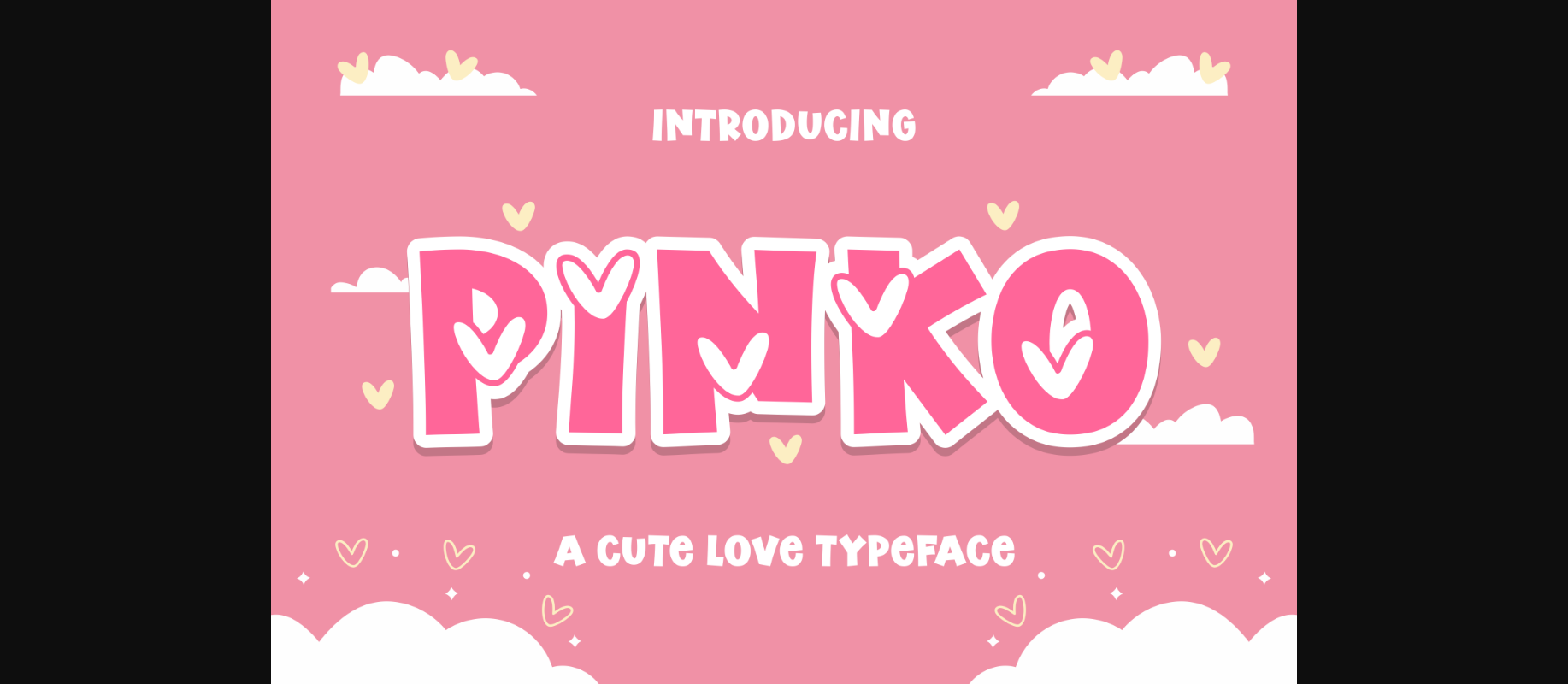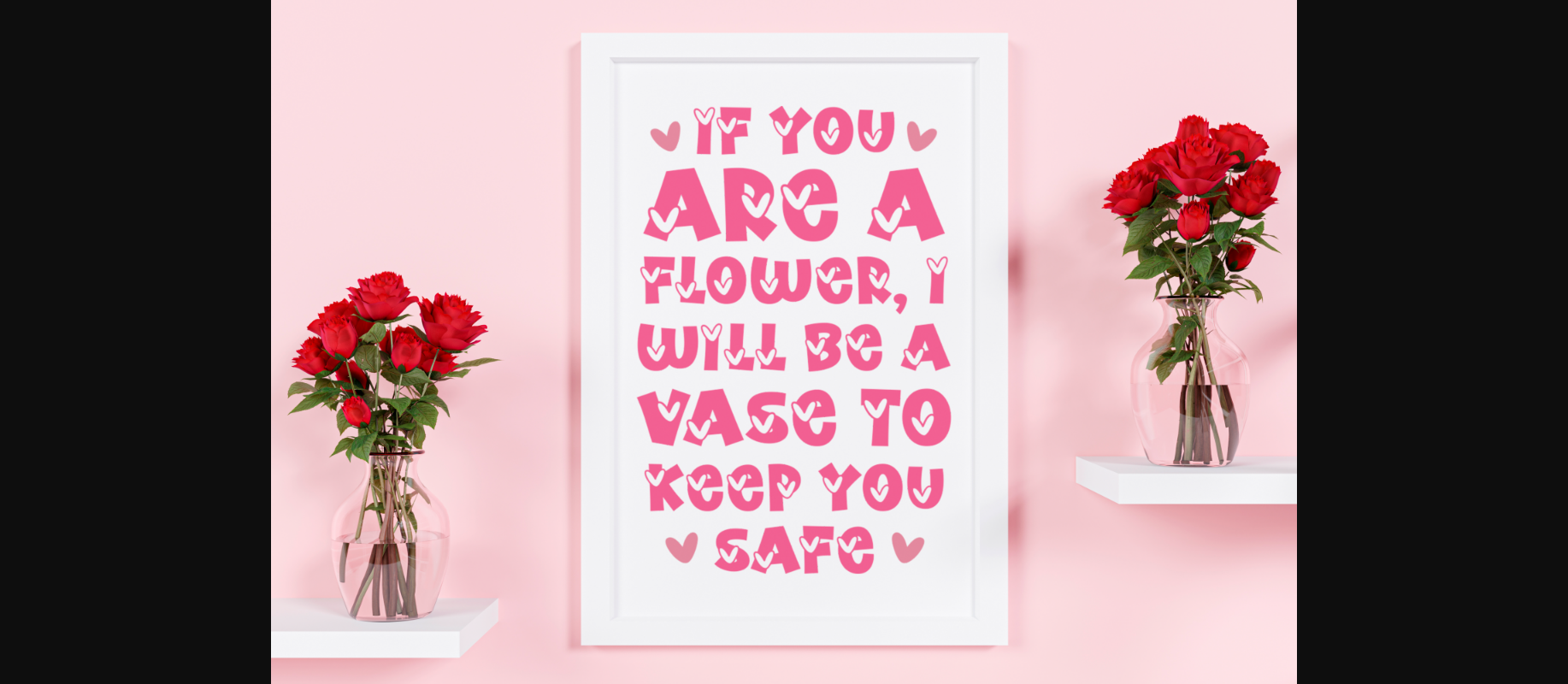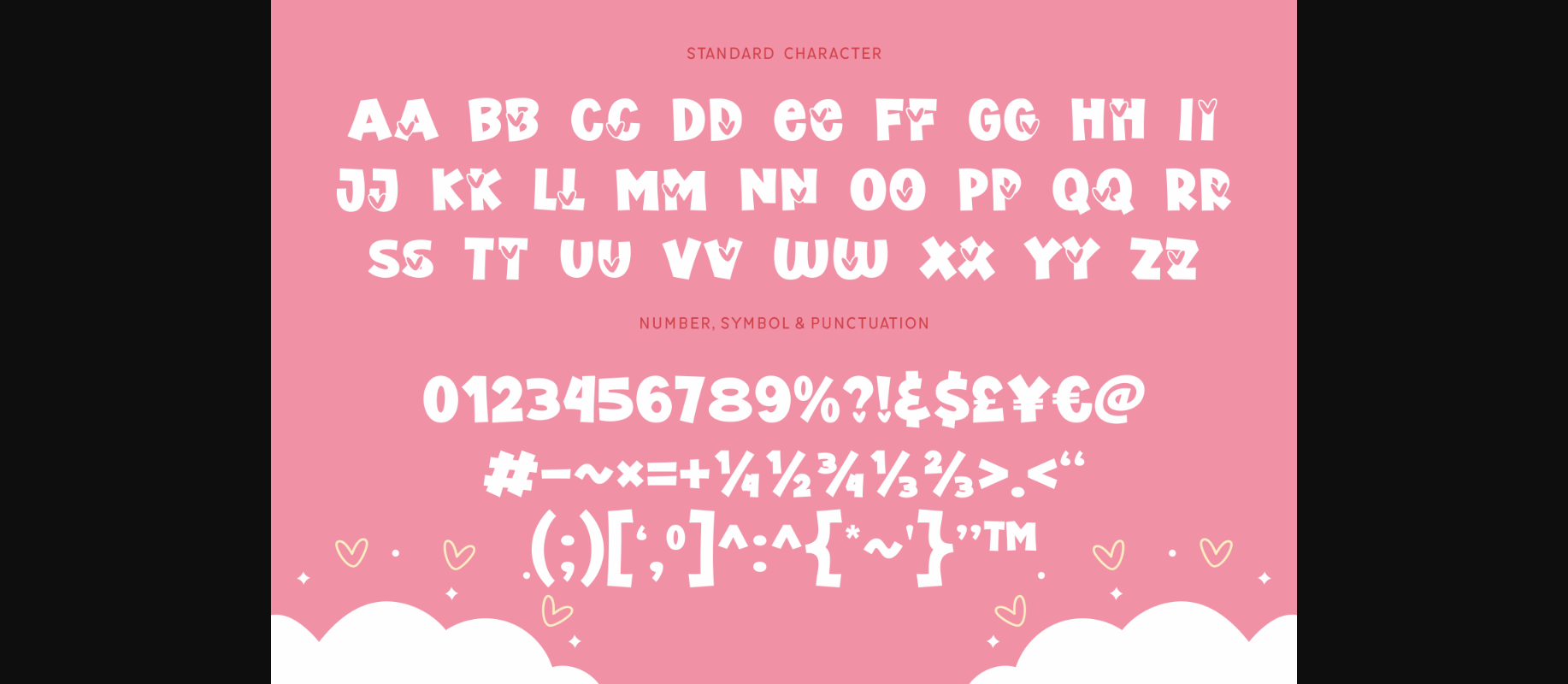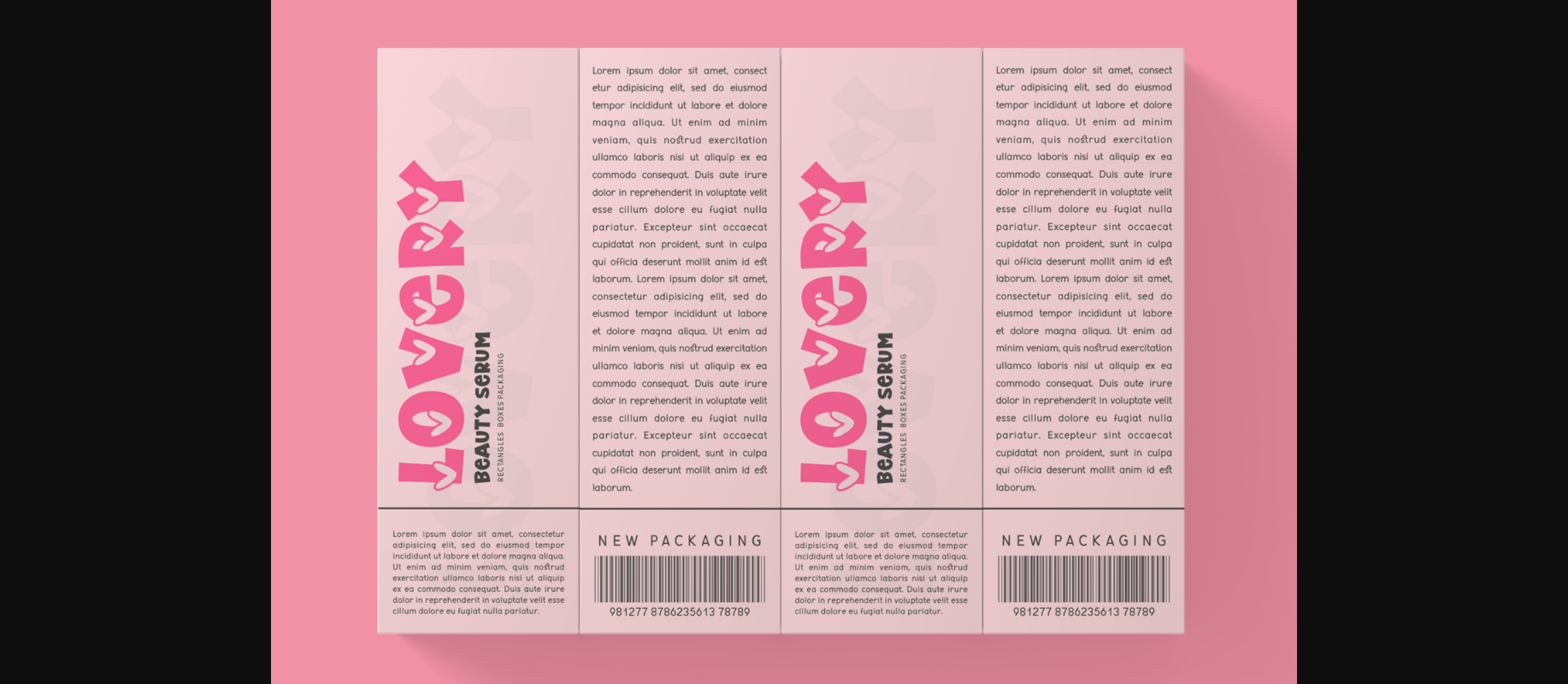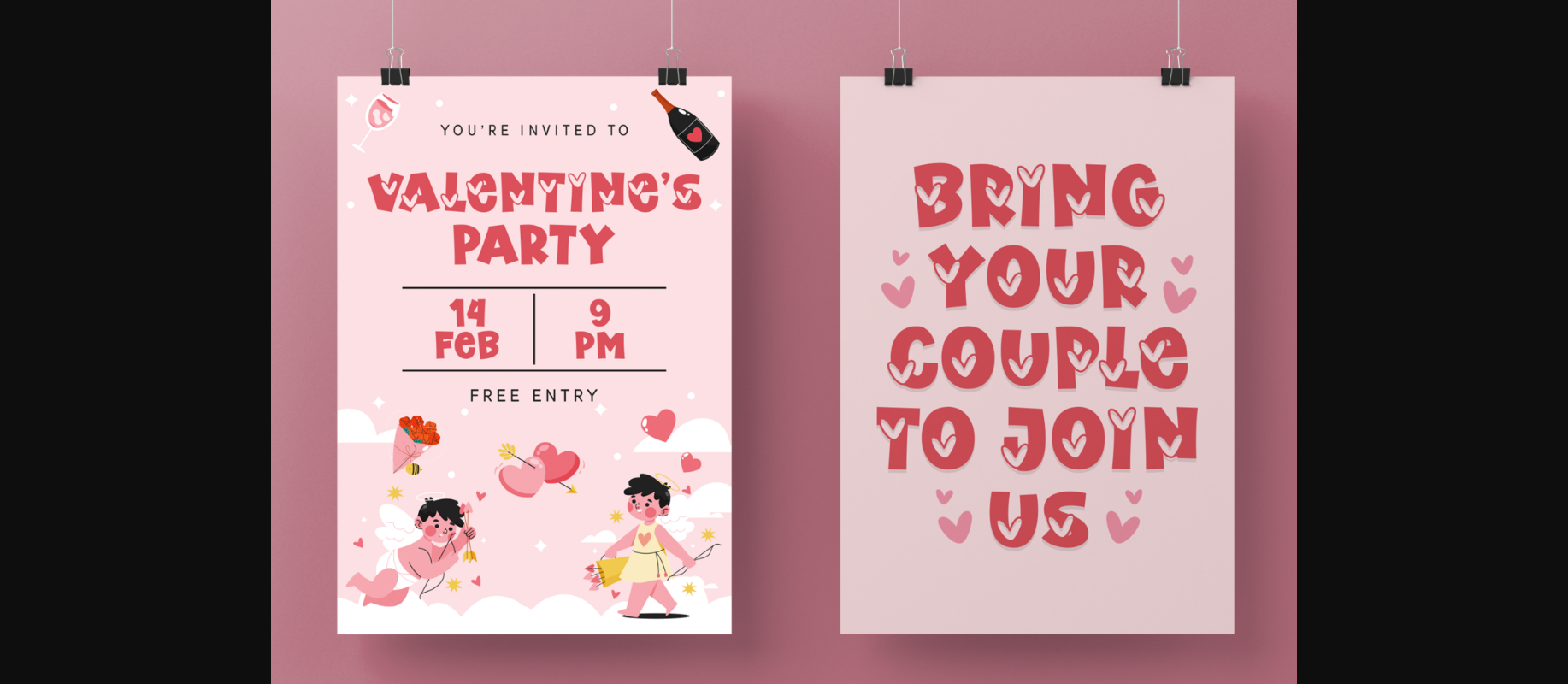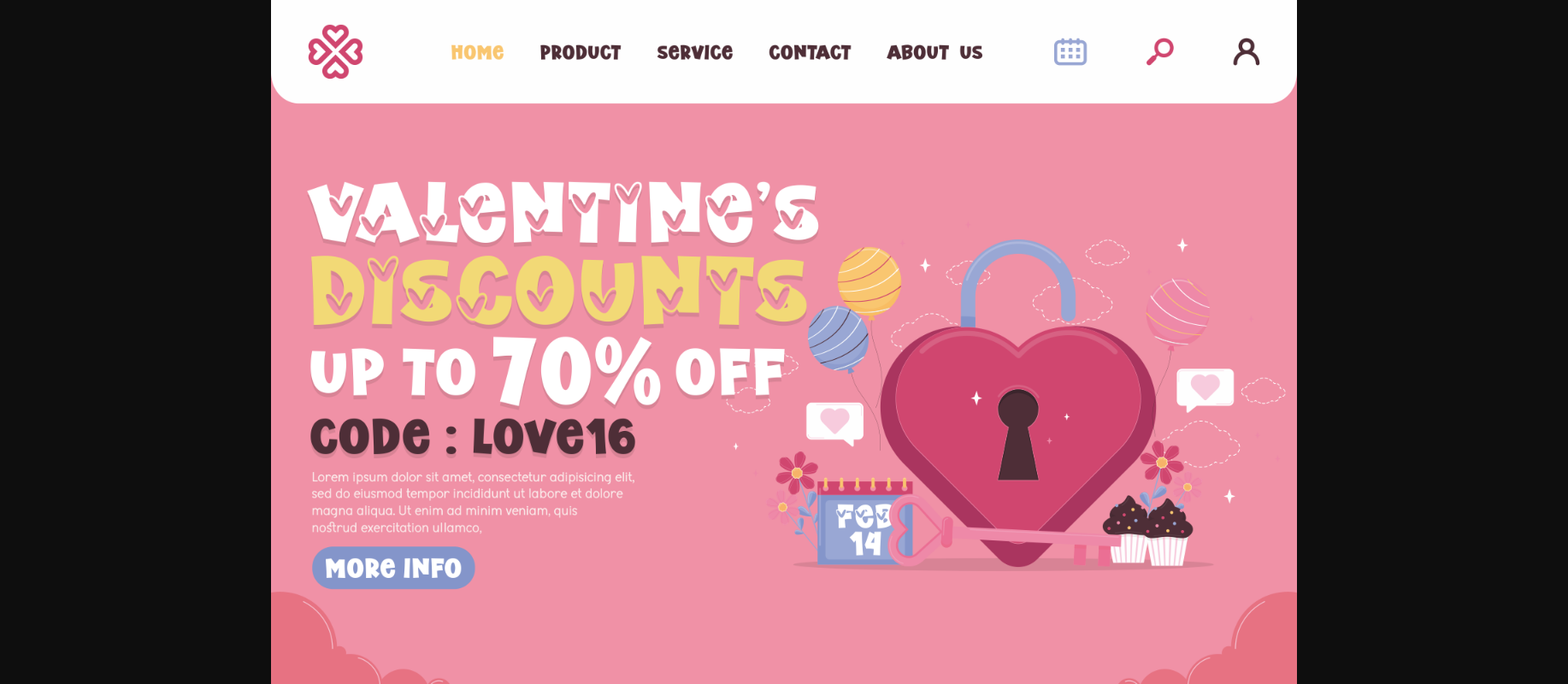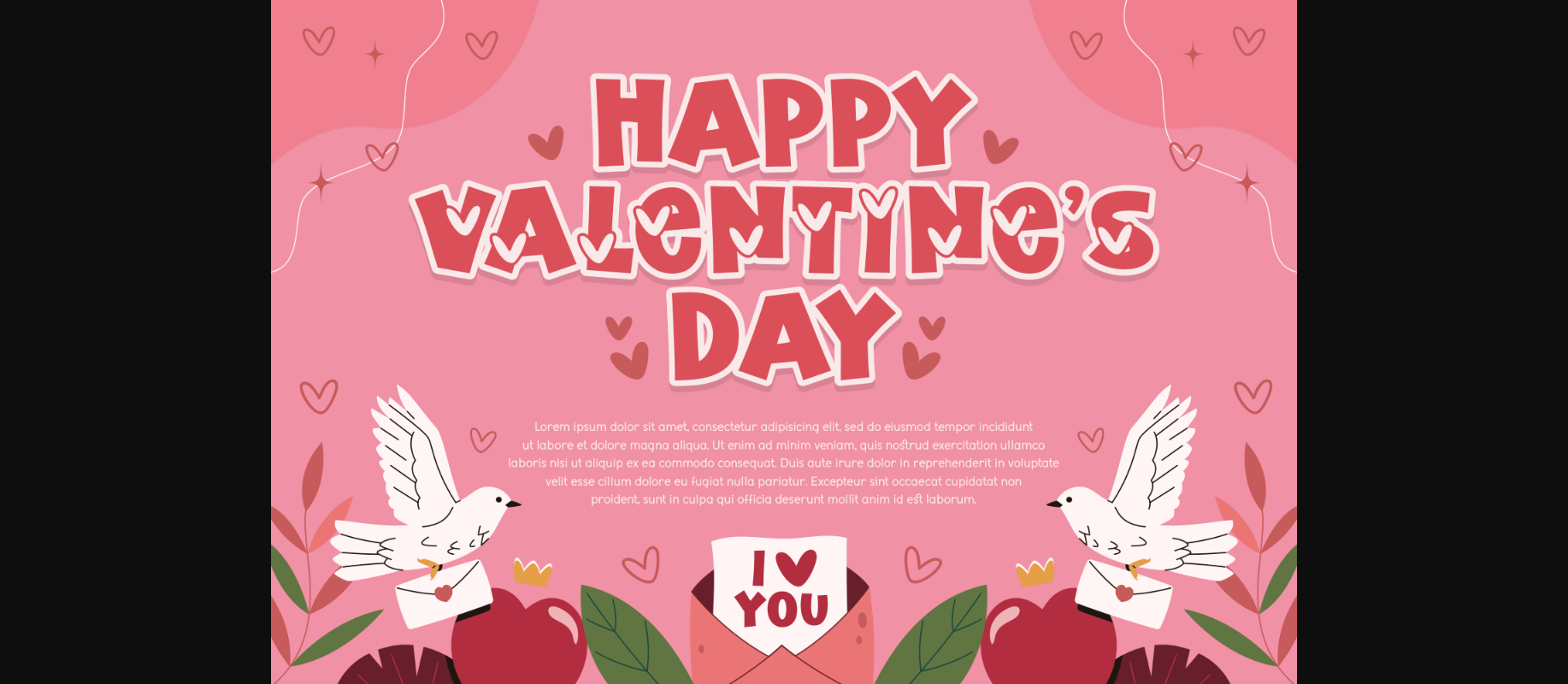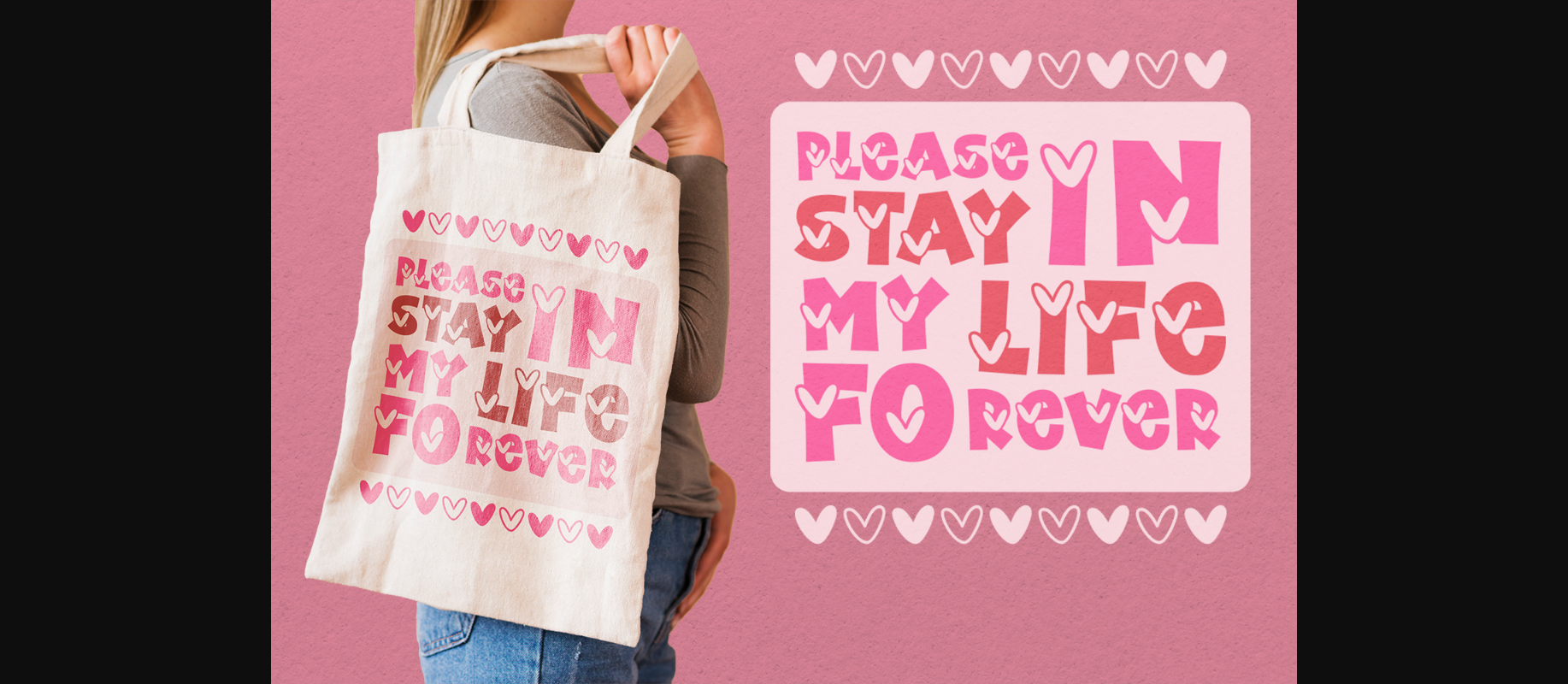
Pinko Font
About Pinko Font
Pinko is a modern and dainty decorative font. The lovely calligraphy and the petty birds added inside the characters will fit design ideas, such as presentations, quotes, stationery art, and much more.